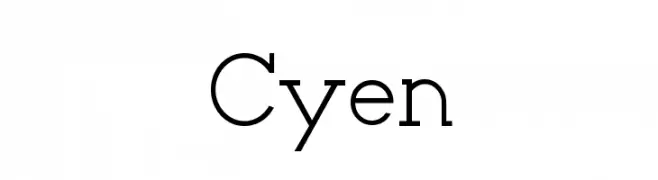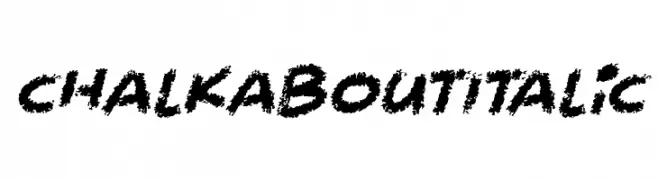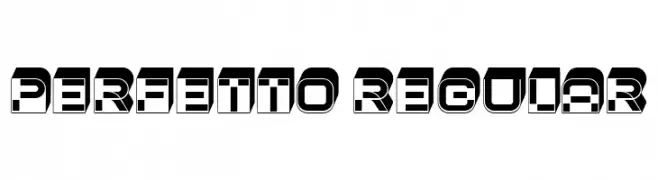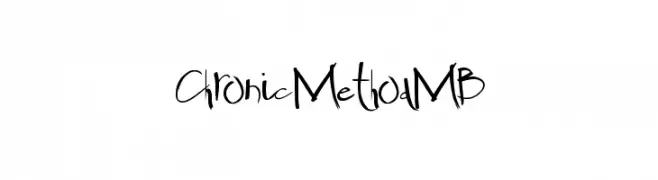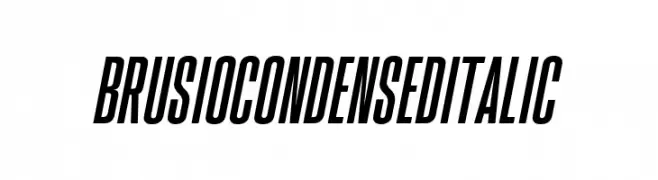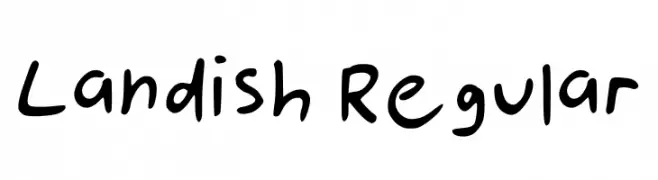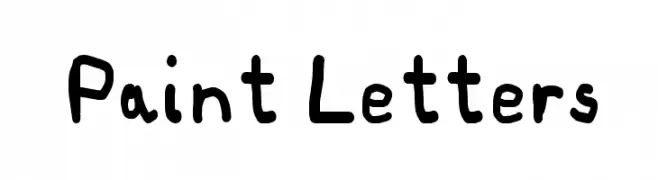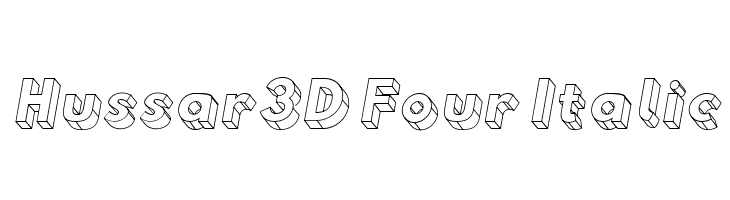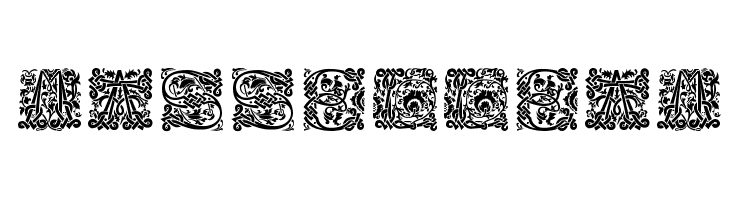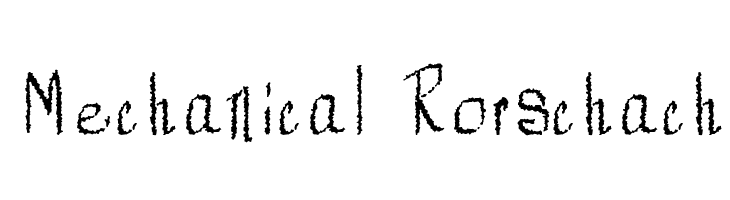
A modern, geometric font with clean lines and consistent stroke width.
A bold, chalk-textured font with an informal, hand-drawn style.
A bold, geometric font with a modern, futuristic style and high contrast.
A dynamic, graffiti-inspired font with expressive strokes and playful angles.
A bold, condensed, and italic font with a modern, geometric style.
A condensed, italic font with a modern, dynamic style.
Casual handwritten font with a playful feel.
A playful, modern font with heart-shaped embellishments and clean lines.
A playful and eclectic collection of ornamental and iconographic glyphs.
A playful, hand-painted style font with bold, wavy strokes and a whimsical appearance.